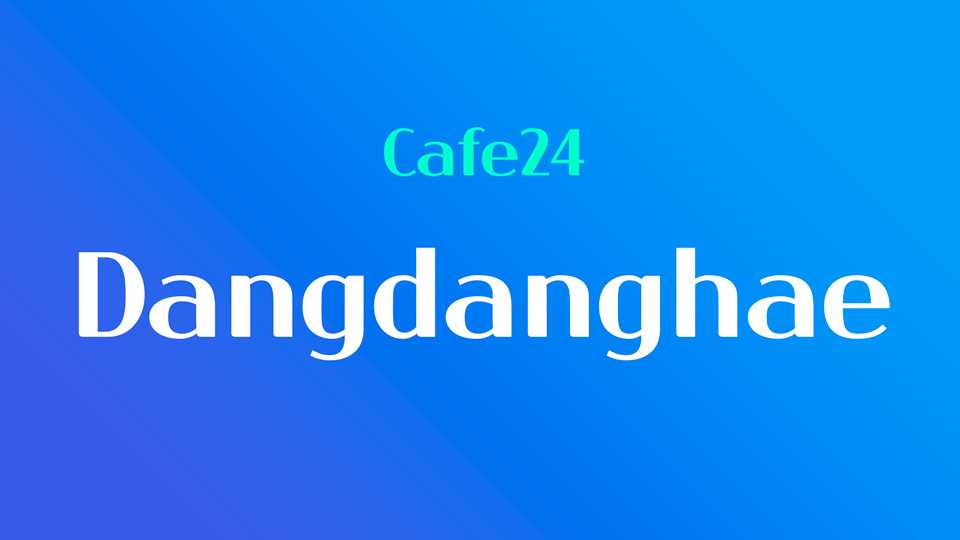
Download Dangdanghae font, a contemporary high contrast display sans serif inspired by the beauty and elegance of modern style typefaces. Dangdanghae would be suitable for a range of display usages (logo, poster, headlines, quotes, etc.).
Designer: Cafe24